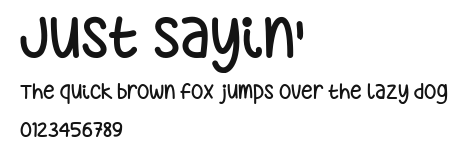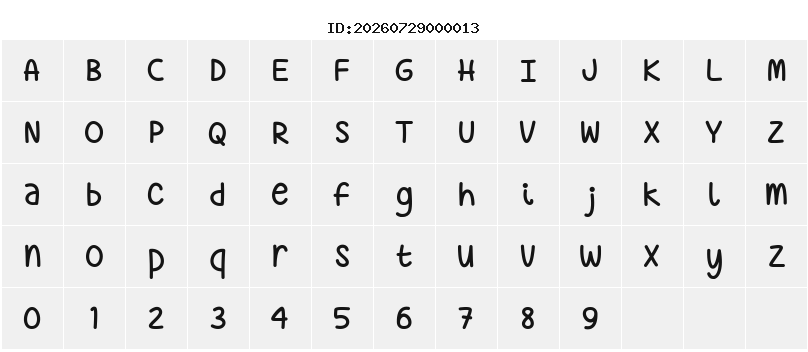
Just Sayin' Preview
• Font Name: Just Sayin'
• Full Font Name: Just Sayin'
• Designer: Misti's Fonts (Misti Hammers)
About Just Sayin'.ttf
Just Sayin'.ttf is a modern, elegant sans-serif font designed for ultimate readability and visual harmony. Perfect for branding, headlines, web design, and print materials.